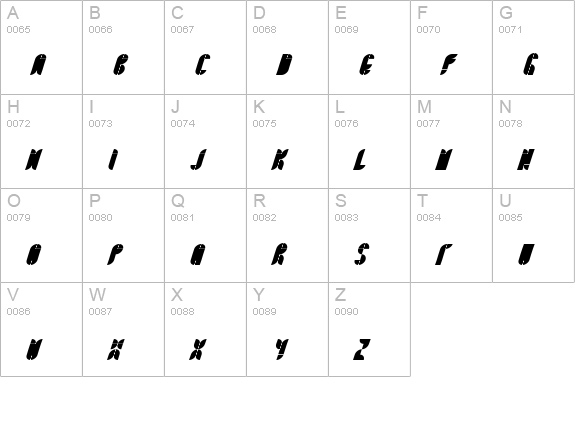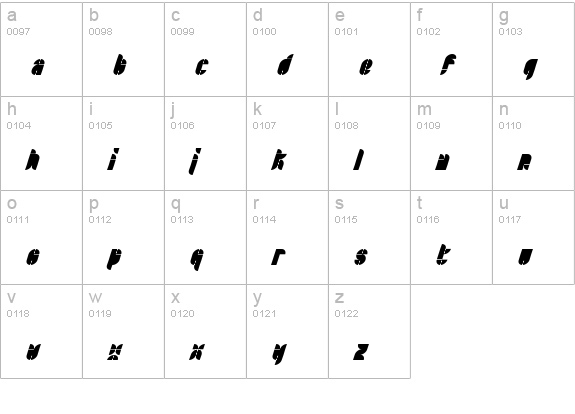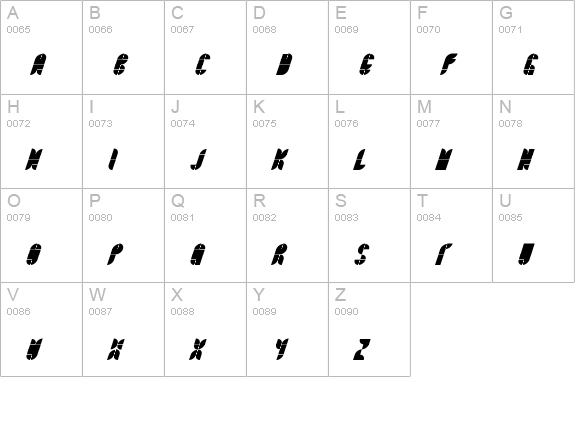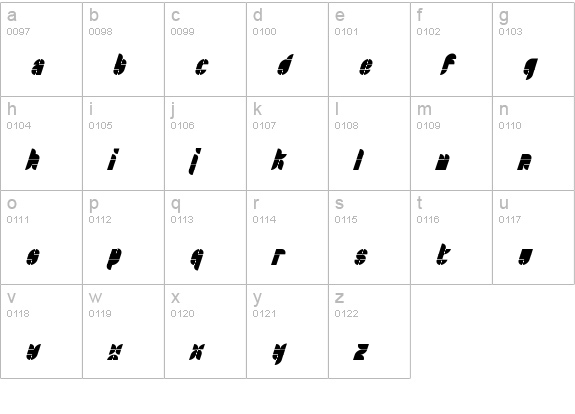
Bath BlackItalic font is a beautifully crafted typeface that exudes elegance and sophistication. With its sleek and modern design, this font is perfect for adding a touch of luxury to any project. The italic style adds a sense of flair and dynamism, making it stand out from the crowd. What's even better is that Bath BlackItalic font is completely free to download at FontsMarket.com. Whether you're working on a professional design project or simply looking to elevate your personal creations, this font is a versatile choice that will not disappoint. Don't miss out on the opportunity to enhance your work with this stunning typeface – download Bath BlackItalic today!